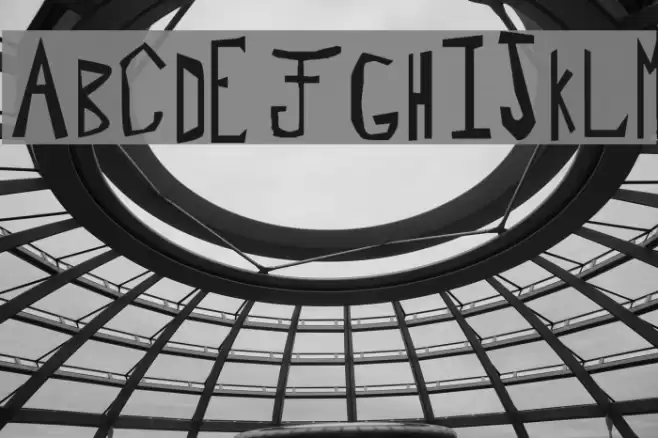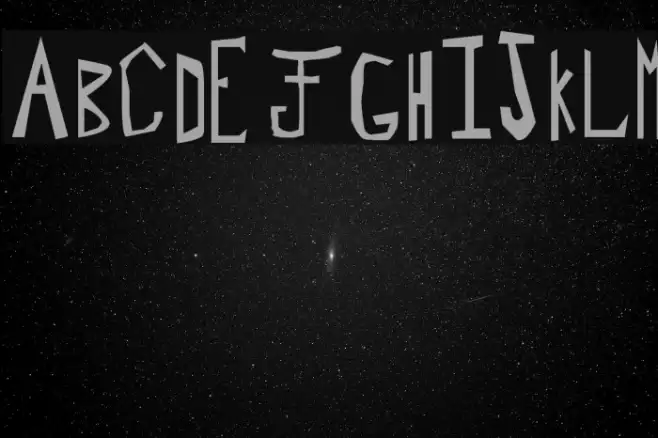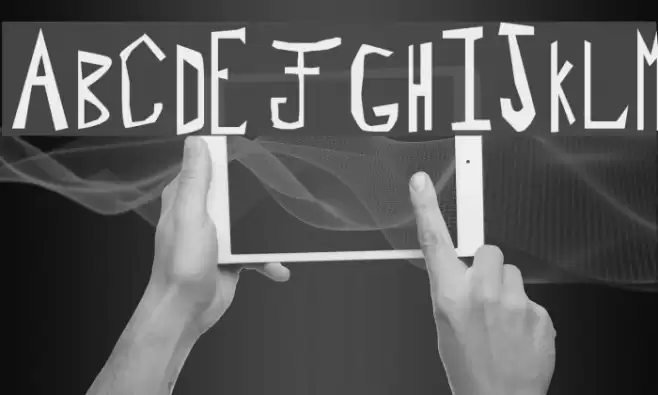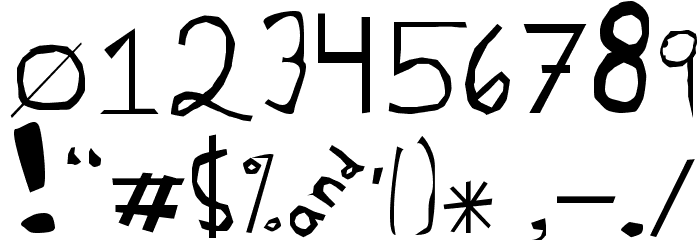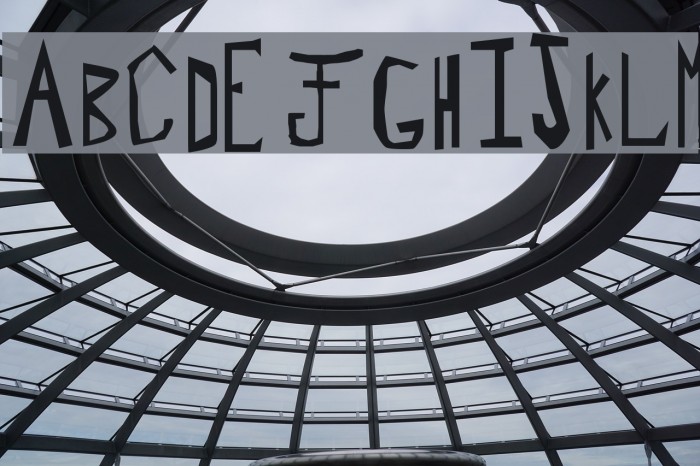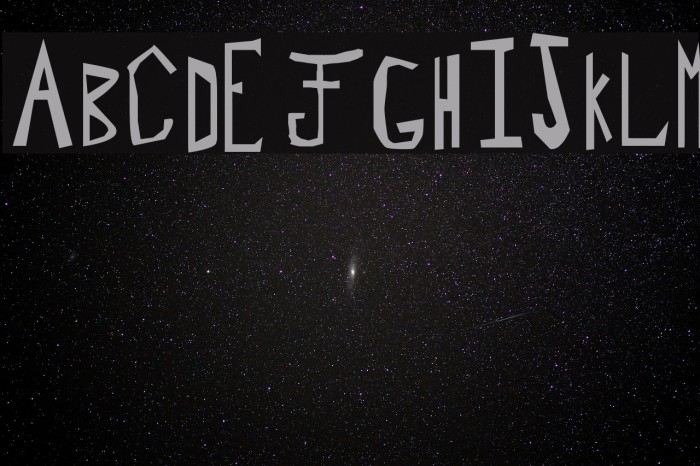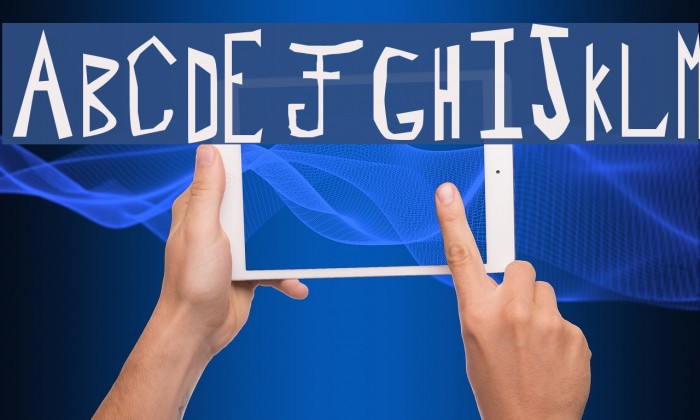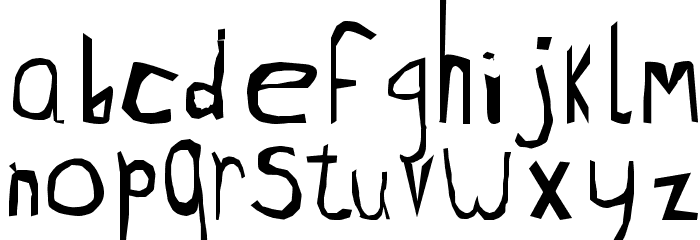
Lake Kegonsa crappy Font
Lake Kegonsa crappy Description
This font features a quirky and playful design with irregular, hand-drawn characters. The uppercase letters are tall and narrow, with varying stroke widths that give a dynamic, uneven appearance. Lowercase letters maintain the same whimsical style, with some characters leaning or tilting slightly, adding to the casual, artistic feel. Numbers and special characters follow the same irregular pattern, contributing to the font's overall informal and creative vibe. The font's unique style makes it stand out, perfect for projects that require a touch of individuality and creativity.
A quirky, hand-drawn font with irregular, playful characters from Handwritten fonts.
- Proposed Projects: Ideal for children's books, creative posters, casual branding, and artistic projects.